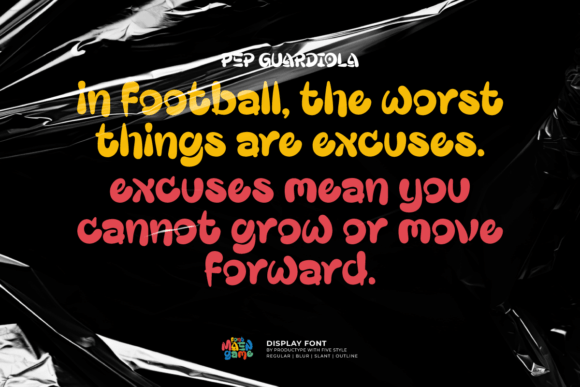
Meet Maengame Font Display: Bring Fun and Power to Your Designs!
Maengame Font is not just a font; it’s a gateway to a world of joy and power in your designs. With eye-catching display themes and a strong game style, Maengame brings a unique touch to your projects. In this article, we will explore the features and benefits of Maengame Font and how it can elevate your designs to the next level.
Key Features of Maengame Font
- Eye-catching Display Themes: Maengame Font comes with a variety of display themes that are sure to grab attention. Whether you’re working on a poster, banner, or social media graphic, Maengame has got you covered.
- Strong Game Style: The font has a strong game style that adds a sense of courage and resilience to your designs. This makes it perfect for projects that require a bold and adventurous touch.
- Fun and Playful Design: Maengame Font features a bubble-filled design that adds a fun element to each letter. This playful design makes it ideal for projects that require a lighthearted and entertaining touch.
How Maengame Font Can Benefit Your Designs
Maengame Font is the perfect solution for projects that require a unique touch. Here are some benefits of using Maengame Font in your designs:
- Unforgettable Charm: Maengame Font ensures that every design carries unforgettable charm. The font’s unique design and strong game style make it impossible to ignore.
- Perfect for Bold Displays: Whether you’re working on a bold display or a lively game, Maengame Font is the perfect choice. The font’s eye-catching display themes and strong game style make it ideal for projects that require a bold and adventurous touch.
- Ideal for Entertaining Events: Maengame Font is also perfect for entertaining events such as parties, carnivals, or festivals. The font’s fun and playful design adds a lighthearted touch to any event.
Examples of Maengame Font in Action
Maengame Font can be used in a variety of projects, including:
- Posters and Banners: Use Maengame Font to create eye-catching posters and banners that grab attention.
- Social Media Graphics: Add a fun and playful touch to your social media graphics with Maengame Font.
- Games and Animations: Maengame Font is perfect for games and animations that require a bold and adventurous touch.
- Events and Parties: Use Maengame Font to add a lighthearted touch to your events and parties.
Maengame Font Details
Here are some details about Maengame Font:
- Font Type: Maengame Font is a display font.
- Font Style: The font has a strong game style with a bubble-filled design.